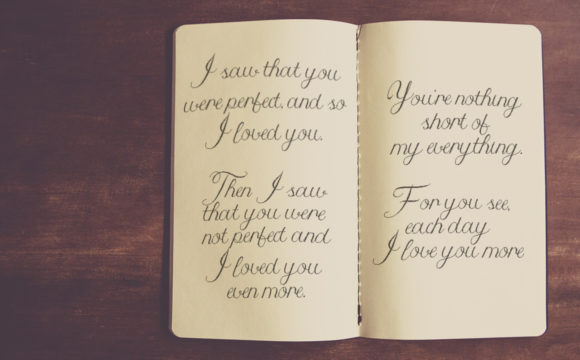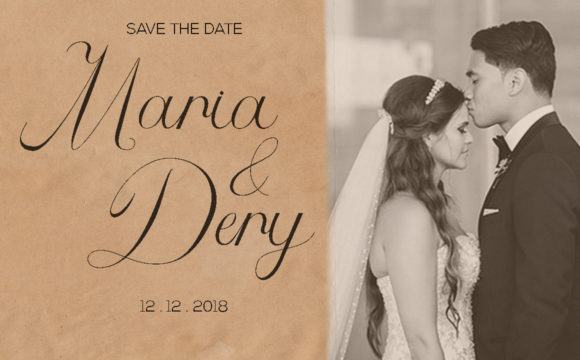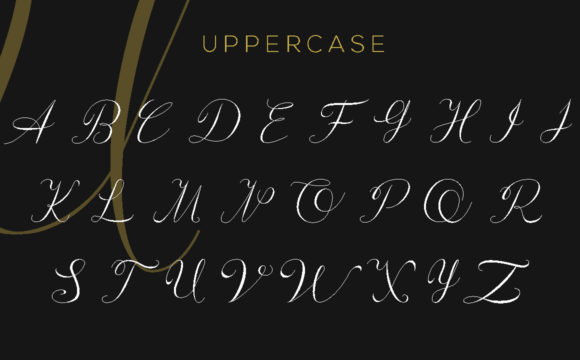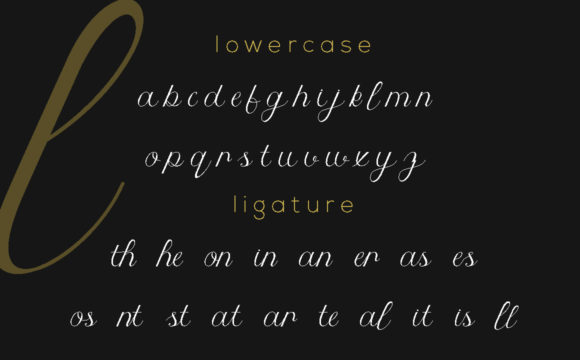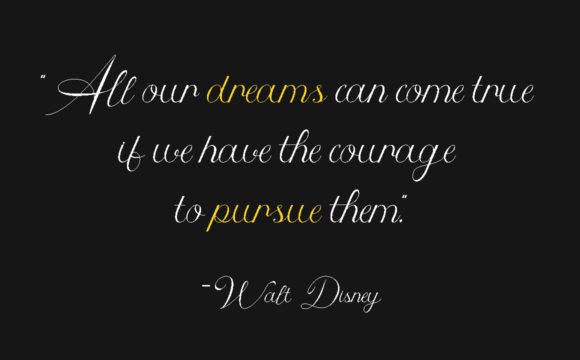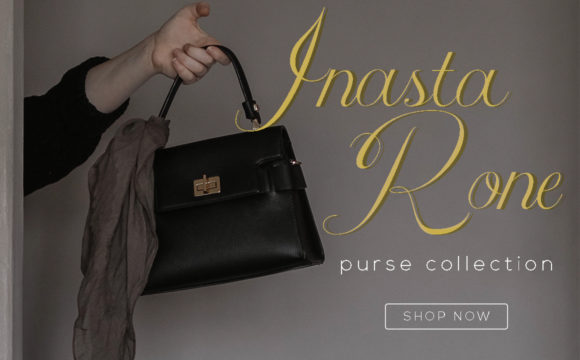
Athenia Font: Elevate Your Designs with Elegant Modern Calligraphy
In the world of typography, fonts play a crucial role in conveying the tone and aesthetic of a design. For designers and crafters looking to add a touch of elegance and sophistication to their projects, the Athenia Font is an excellent choice. This modern calligraphy font combines the classic charm of decorative copper script with a contemporary twist, making it perfect for a wide range of design applications.
The Essence of Athenia Font
The Athenia Font is a modern calligraphy font that boasts beautiful, highly detailed characters. Its design is rooted in the traditional copper script style, which is known for its elegant and refined appearance. However, Athenia brings a fresh perspective to this classic style by incorporating modern elements that make it more versatile and appealing to contemporary designers.
One of the standout features of the Athenia Font is its ability to bring elegance to any design. Whether you’re working on a branding project, creating wedding invitations, designing packaging, or crafting digital content, this font can elevate your work with its sophisticated and refined look. The intricate details and flowing lines of Athenia’s characters add a level of luxury and refinement that is hard to achieve with more basic fonts.
Key Features of Athenia Font
- Modern Calligraphy Style: Athenia’s design is inspired by traditional calligraphy but with a modern edge that makes it suitable for a variety of contemporary design projects.
- Highly Detailed Characters: Each character in the Athenia Font is meticulously crafted to ensure that the font looks elegant and sophisticated in any context.
- Classic Decorative Copper Script Influence: The font’s roots in copper script give it a timeless quality, while its modern adaptations make it fresh and relevant.
- Elegance and Versatility: Athenia can be used in a range of design applications, from digital graphics and branding to print materials like invitations and packaging.
Uses of Athenia Font
The versatility of the Athenia Font makes it suitable for numerous design projects. Here are some of the ways you can use Athenia to enhance your designs:
- Branding and Logotypes: The elegant and modern look of Athenia makes it perfect for creating brand names and logotypes that require a sophisticated touch.
- Wedding and Event Invitations: Add a touch of luxury and romance to your wedding or event invitations with Athenia’s beautiful calligraphy.
- Packaging Design: Use Athenia to create eye-catching and elegant packaging that stands out on store shelves.
- Digital Content: Whether it’s for a website, social media graphics, or digital advertising, Athenia can help you create visually appealing content.
Tips for Using Athenia Font Effectively
To get the most out of the Athenia Font, consider the following tips:
- Pair with Complementary Fonts: Athenia works well with clean sans-serif fonts for body text, creating a nice contrast between elegance and readability.
- Use for Headlines and Titles: Take advantage of Athenia’s decorative qualities by using it for headlines, titles, and key messages.
- Experiment with Colors: While Athenia looks great in traditional black or dark colors, don’t be afraid to experiment with different colors to match your brand or design theme.
The Athenia Font is a stunning example of modern calligraphy that brings a touch of elegance and sophistication to any design. Its unique blend of classic copper script and contemporary style makes it a versatile tool for designers and crafters looking to create beautiful and impactful work. Whether you’re designing for print or digital media, Athenia is sure to elevate your projects and leave a lasting impression on your audience.
With its highly detailed characters and elegant aesthetic, Athenia is more than just a font—it’s a design statement. By incorporating Athenia into your projects, you’re not just choosing a typeface; you’re opting for a level of refinement and luxury that can transform your designs and set them apart.